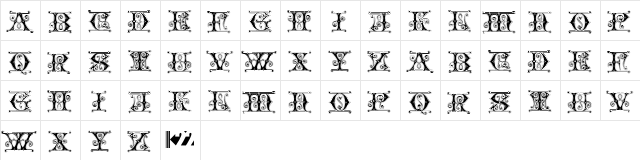
Ginger Initials Regular
| Foundry | Toto |
| Designer | Toto |
Design Context for Ginger Initials Typeface
Ginger Initials is a composed and adaptable typeface that performs quietly and consistently across a wide range of design contexts.